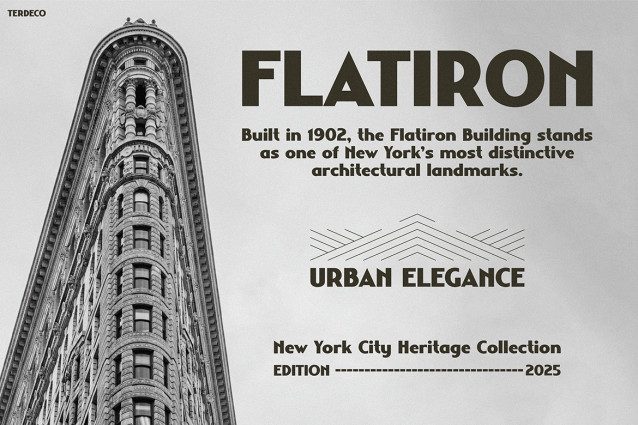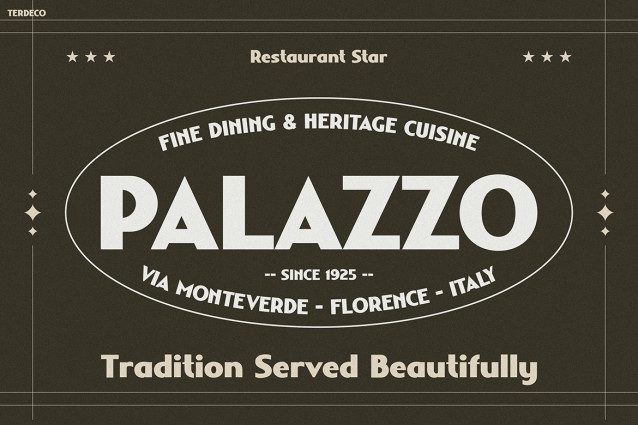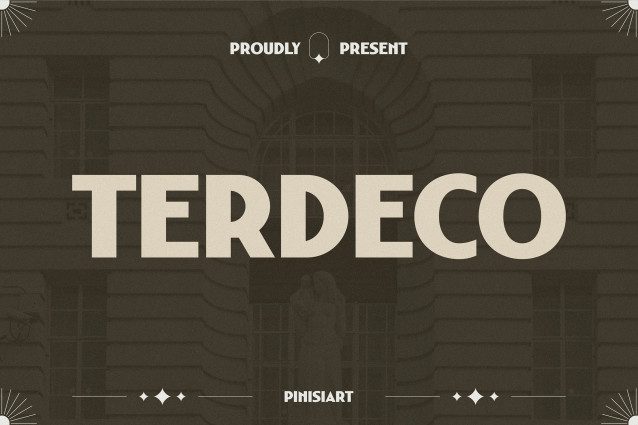
Terdeco Font
Terdeco Font is a refined blend of Art Deco sophistication and modern design clarity. This typeface captures the timeless beauty of early 20th-century architecture while embracing the clean aesthetics of today. With its geometric precision, elegant proportions, and sharp details, it delivers a look that feels both luxurious and versatile. Moreover, its visual harmony makes every letter a piece of art, balancing structure and expression flawlessly.
Every character in TERDECO reflects a sense of symmetry, proportion, and confidence inspired by the golden age of design. The combination of strong vertical lines and graceful curves brings depth and personality to any layout. As a result, it feels equally at home on modern branding as it does on vintage-inspired visuals. In addition, its high readability ensures that it performs beautifully in both print and digital applications, from posters and magazines to signage and packaging.